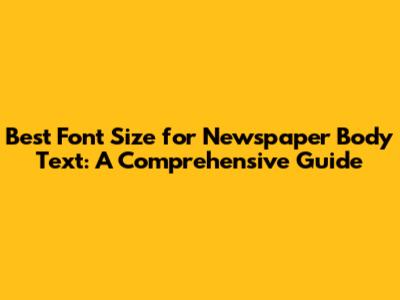
- Leading: The space between lines of text. Adjusting the leading can significantly improve readability, especially with smaller font sizes.
- Kerning: The space between individual letters. Proper kerning ensures that letters are evenly spaced and easy to distinguish.
- Contrast: Ensure sufficient contrast between the text and the background. Black text on a white background is generally the most readable.
- White Space: Use white space effectively to create visual separation and prevent the page from feeling cluttered.
Choosing the right font size for newspaper body text is crucial for readability and overall reader experience. If your readers can't comfortably read the text, they simply won't engage with your content. This guide provides a comprehensive overview of the factors to consider when selecting the best font size, ensuring your newspaper is both visually appealing and easy to read.
Understanding the Importance of Font Size
The font size for newspaper body text isn't just about aesthetics; it profoundly impacts readability. A font that is too small strains the eyes, leading to reader fatigue and discouraging them from continuing. Conversely, a font that is too large can appear childish and unprofessional, wasting valuable space and making the layout less appealing. Finding the sweet spot involves considering several key factors to optimize the reading experience. These factors include the target audience, the chosen typeface, the column width, and the overall design of the newspaper. Each of these elements plays a crucial role in determining the ideal font size for newspaper body text. It's a balancing act that requires careful consideration to achieve the desired effect. The ultimate goal is to create a newspaper that is both informative and visually accessible, encouraging readers to engage with the content and return for more. Therefore, understanding the nuances of font size and its impact on readability is paramount for any newspaper design.
Key Factors to Consider
Several key factors influence the ideal font size for newspaper body text. Understanding these elements will help you make an informed decision: let's break it down, guys!
Target Audience
The age and vision capabilities of your target audience are paramount. For newspapers aimed at older readers, a slightly larger font size for newspaper body text is generally recommended. This accommodation helps reduce eye strain and makes reading more comfortable. Consider conducting reader surveys or focus groups to gather insights into their preferences and needs. Understanding your audience's specific requirements ensures that the chosen font size enhances their reading experience. Also, think about the reading habits of your audience. Do they typically read in well-lit areas or in environments with less light? Are they likely to read for extended periods? These factors can influence the optimal font size. By tailoring the font size for newspaper body text to the specific needs of your target audience, you can create a more accessible and enjoyable reading experience, fostering greater engagement with your newspaper. Furthermore, demographic factors such as education level and familiarity with reading can also play a role in determining the ideal font size. A well-informed approach to audience analysis is crucial for making the right decision.
Typeface Selection
Different typefaces have different heights, even at the same point size. A typeface with a larger x-height (the height of the lowercase 'x') will appear bigger than one with a smaller x-height. Therefore, the font size for newspaper body text needs to be adjusted based on the specific typeface you choose. Experiment with different fonts and sizes to see what looks best in your layout. Consider readability factors such as the clarity of individual characters and the spacing between letters and words. Some typefaces are specifically designed for newspaper use, offering enhanced readability at smaller sizes. These fonts often have features like wider letterforms and more open counters (the enclosed spaces within letters). When selecting a typeface, pay attention to its overall aesthetic and how well it complements the tone and style of your newspaper. A classic serif font might be suitable for a traditional newspaper, while a modern sans-serif font could be a better choice for a more contemporary publication. The key is to find a typeface that is both visually appealing and highly readable, ensuring that your readers can easily engage with the content.
Column Width
The width of your columns also affects the ideal font size for newspaper body text. Narrower columns generally require a smaller font size to maintain readability, while wider columns can accommodate a slightly larger font size. The goal is to ensure that the lines of text are not too long, which can make it difficult for readers to track from one line to the next. A good rule of thumb is to aim for a line length of around 40 to 60 characters. If your columns are wider, you may need to increase the font size or adjust the column width to achieve this optimal line length. Conversely, if your columns are narrower, you may need to reduce the font size or increase the column width. Experiment with different combinations of font size and column width to find the best balance for your newspaper. Consider using a grid system to ensure consistent column widths throughout the publication. This can help create a more visually appealing and organized layout. Ultimately, the relationship between font size for newspaper body text and column width is crucial for readability, and careful consideration of both factors is essential for effective newspaper design.
Printing Quality
The quality of your newspaper's printing process can significantly impact how the font size for newspaper body text appears. Lower-quality printing may result in text appearing less sharp, requiring a slightly larger font size to compensate. High-quality printing allows for finer details to be reproduced accurately, making smaller font sizes more readable. Consider the type of paper stock used, as different paper types can affect ink absorption and clarity. Newsprint, for example, tends to absorb ink more readily than coated paper, which can result in text appearing slightly blurred. If you are using newsprint, you may need to increase the font size or choose a typeface with bolder letterforms to ensure readability. Conduct test prints to evaluate how the chosen font size and typeface appear on the intended paper stock. This will help you identify any potential issues and make necessary adjustments before going to press. Work closely with your printing company to understand their capabilities and limitations, and to ensure that your newspaper is printed to the highest possible standards. By taking printing quality into account, you can optimize the font size for newspaper body text and create a visually appealing and easily readable publication.
Recommended Font Sizes
While the ideal font size for newspaper body text varies, a general range of 9 to 12 points is often recommended. However, this is just a starting point, and the optimal size will depend on the factors discussed above. It's essential to test different sizes and typefaces to see what works best for your specific newspaper. Remember, readability should always be the primary consideration. When experimenting with different font sizes, pay attention to the overall visual hierarchy of the page. The body text should be easily distinguishable from headlines, subheadings, and captions. Use consistent font sizes and styles throughout the newspaper to create a cohesive and professional look. Consider using a style guide to document your font choices and ensure consistency across all issues. Regularly review your font choices and make adjustments as needed based on reader feedback and changes in printing technology. By continuously optimizing the font size for newspaper body text, you can ensure that your newspaper remains accessible and engaging for your target audience. Moreover, keep an eye on industry trends and best practices to stay informed about the latest developments in typography and newspaper design.
Testing and Evaluation
Before finalizing your font size for newspaper body text, it's crucial to conduct thorough testing and evaluation. Print out sample pages and ask a diverse group of people to read them. Gather feedback on readability, eye strain, and overall visual appeal. Use this feedback to fine-tune your font choices and sizes. Consider using eye-tracking software to analyze how readers interact with the text. This can provide valuable insights into areas where readers may be experiencing difficulty. Pay attention to factors such as reading speed, fixation points, and saccades (the rapid eye movements between fixation points). Analyze the data to identify any patterns or trends that may indicate readability issues. Also, test the newspaper under different lighting conditions to ensure that the text remains readable in various environments. Consider the needs of readers with visual impairments and ensure that the font size and contrast are sufficient for them to comfortably read the text. By conducting rigorous testing and evaluation, you can ensure that your newspaper is accessible and enjoyable for all readers. This will help you create a publication that is both informative and visually appealing, fostering greater engagement and readership. Remember, the ultimate goal is to make the reading experience as effortless and enjoyable as possible.
Additional Tips for Readability
Beyond the font size for newspaper body text, several other factors contribute to overall readability:
By paying attention to these additional factors, you can further enhance the readability of your newspaper and create a more enjoyable reading experience for your audience. Experiment with different combinations of font size, leading, kerning, and white space to find the best balance for your specific publication. Consider consulting with a professional designer to get expert advice on typography and layout. Regularly review your design choices and make adjustments as needed based on reader feedback and changes in printing technology. By continuously striving to improve readability, you can ensure that your newspaper remains a valuable and engaging source of information for your readers. Remember, the goal is to make the reading experience as effortless and enjoyable as possible, fostering greater engagement and readership.